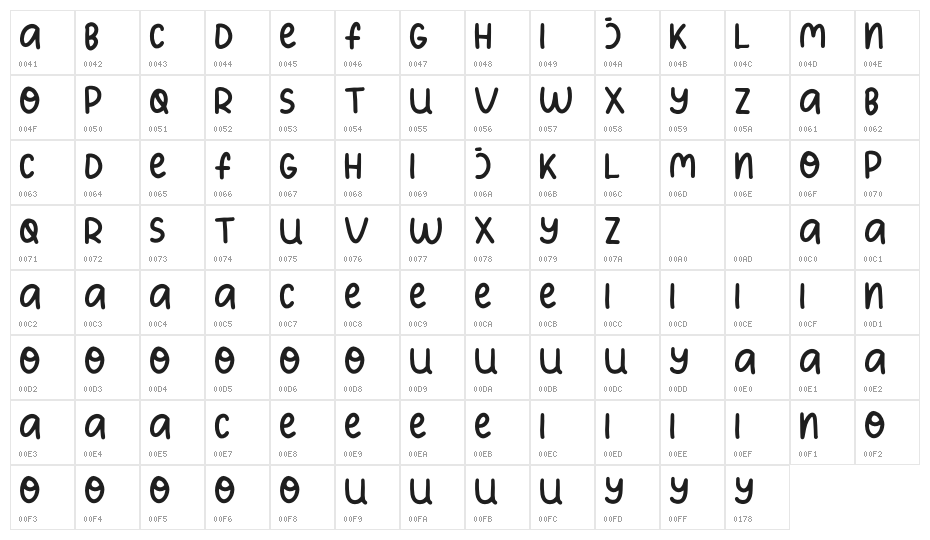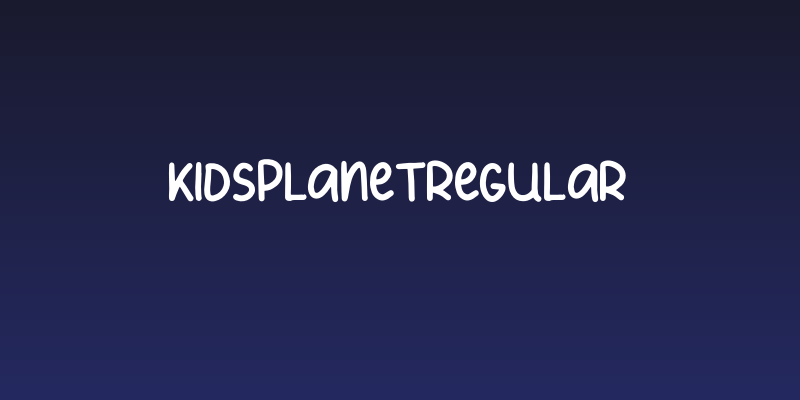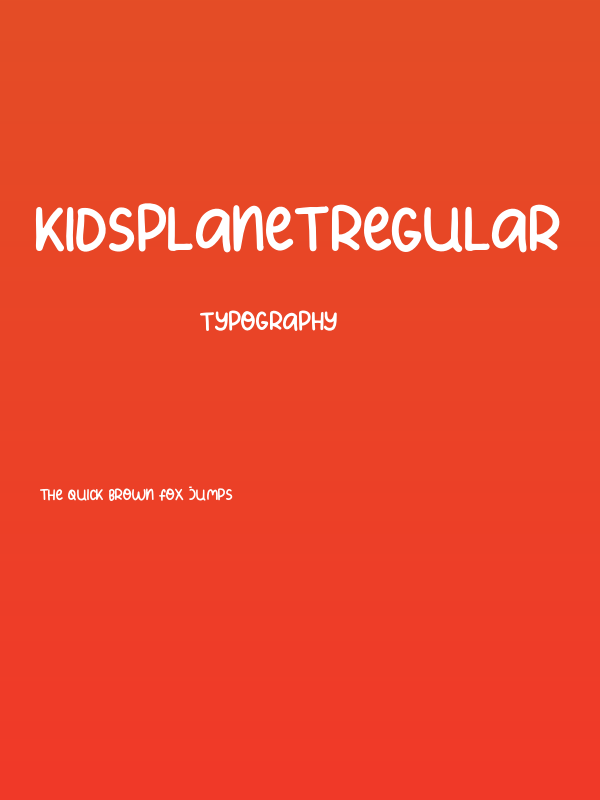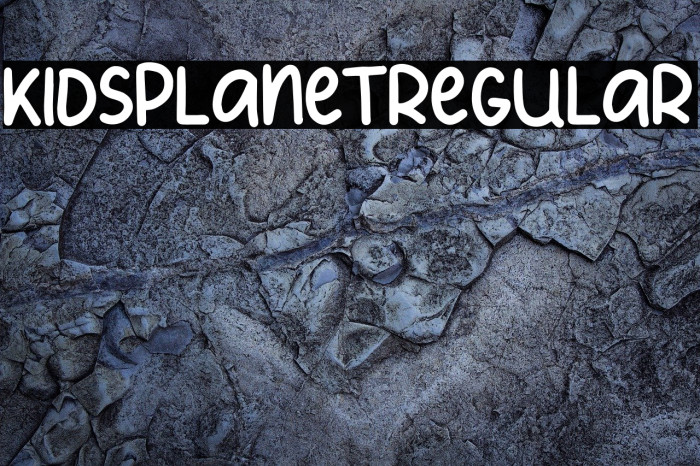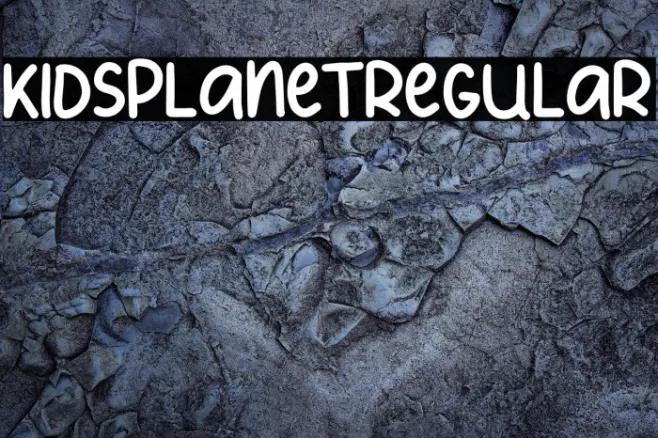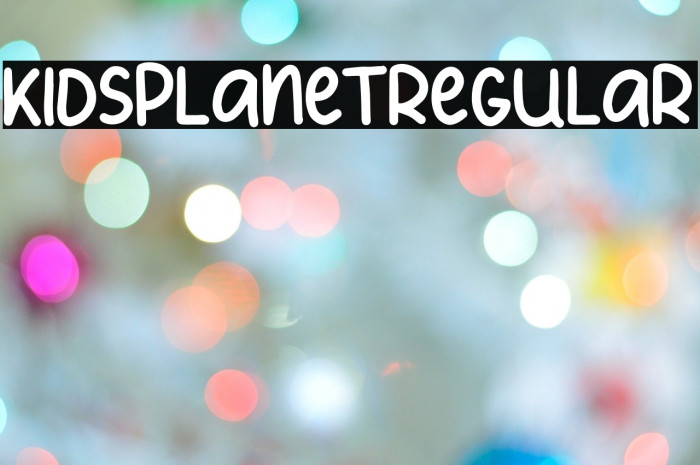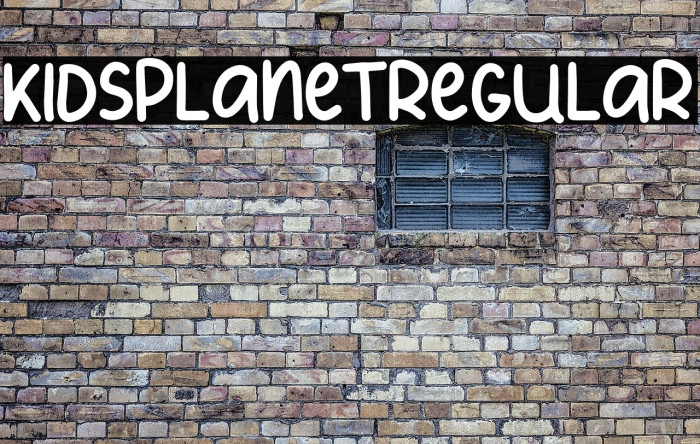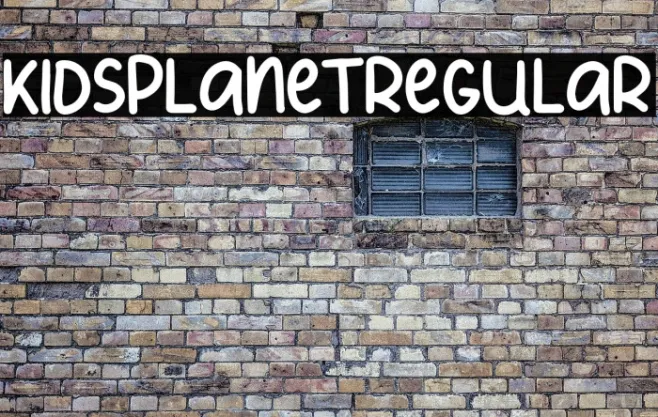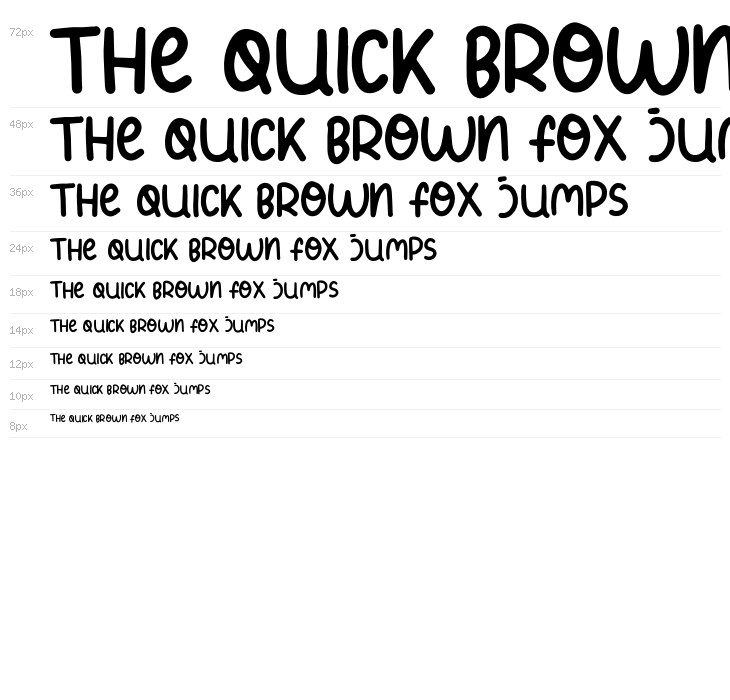
KidsPlanetRegular Font
KidsPlanetRegular Description
This playful and whimsical font features rounded, bold characters that exude a friendly and approachable vibe. The letters are slightly irregular, giving them a hand-drawn appearance that adds to their charm. The uppercase and lowercase letters maintain a consistent style, with smooth curves and a moderate weight that ensures readability. The font's design is ideal for capturing a youthful and energetic spirit, making it perfect for projects aimed at children or those seeking a lighthearted tone. Its simplicity and clarity make it versatile for various applications.
| Use Case | Headlines, Logos, Children's materials |
| Proposed Projects | Ideal for children's books, educational materials, playful branding, and toy packaging. |